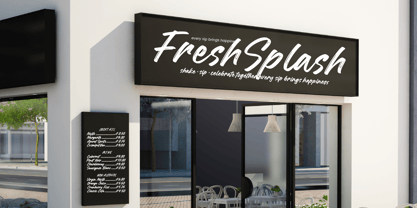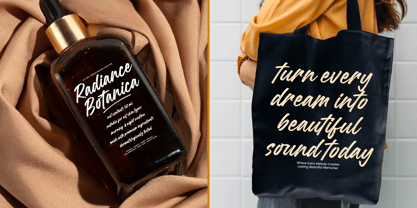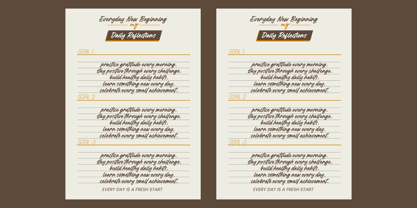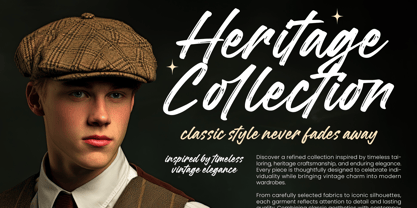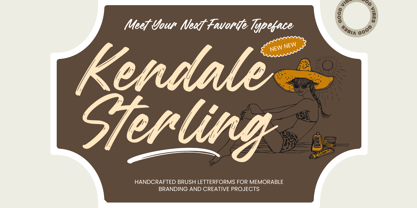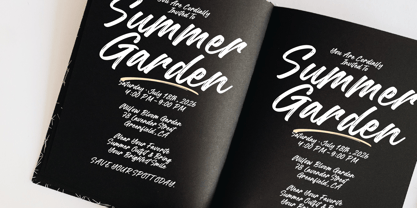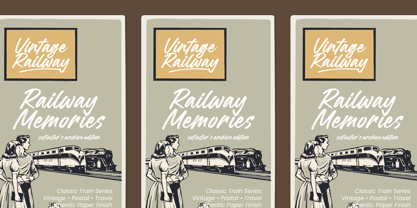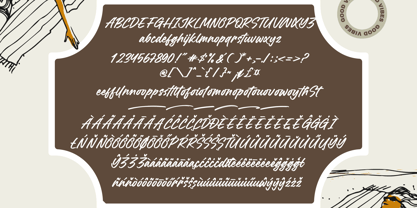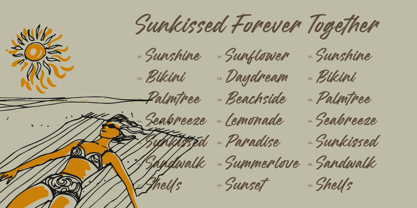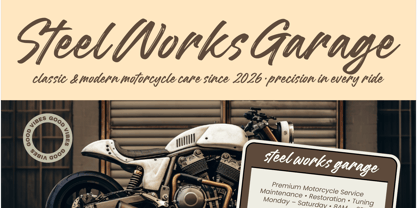
Kendale Sterling
La familia tipográfica Kendale Sterling fue diseñada por Heru Utama Putra y publicada por Letterena Studios. Kendale Sterling contiene 2 estilos y opciones de paquete familiar. Más información sobre esta familia
Kendale Sterling - Bold Brush Handwritten Font
Elevate your creative vision with Kendale Sterling - Bold Brush Handwritten Font, a powerhouse typeface designed to command attention. This authentic dry-brush script captures a raw, energetic aesthetic that blends modern street style with a refined artistic touch. Its bold strokes and handcrafted texture offer a sense of immediacy and personality, ensuring your headlines vibrate with organic energy and unmatched visual impact.